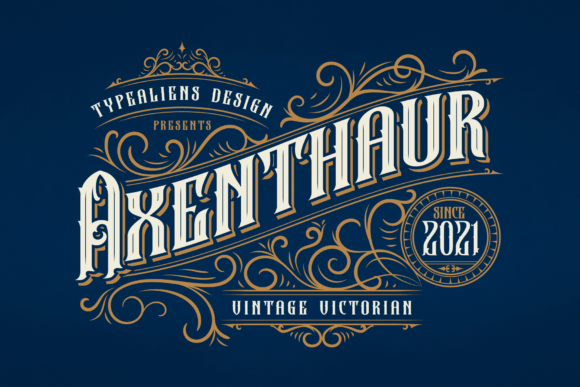
Axenthaur Font: A Timeless Vintage Blackletter Font for Crafty Ideas
Are you looking for a font that can add a touch of elegance and sophistication to your crafty projects? Look no further than Axenthaur, a detailed, vintage-styled blackletter font that is sure to impress. With its original look and versatility, Axenthaur is perfect for a wide range of applications, from letterheads and titles to stationery and more.
What is Axenthaur Font?
Axenthaur is a blackletter font that has been carefully crafted to evoke the feeling of traditional craftsmanship and vintage charm. Its intricate details and ornate design make it a standout among other fonts, and its versatility ensures that it can be used in a variety of contexts. Whether you’re looking to create a bold and dramatic statement or a more subtle and understated look, Axenthaur is the perfect choice.
Key Features of Axenthaur Font
So, what sets Axenthaur apart from other fonts? Here are just a few of its key features:
- Detailed and intricate design: Axenthaur’s design is characterized by its intricate details and ornate flourishes, which give it a truly unique and eye-catching look.
- Vintage styling: Axenthaur’s vintage styling is inspired by traditional craftsmanship and is perfect for creating a nostalgic or retro look.
- Blackletter style: As a blackletter font, Axenthaur features bold, dramatic lines and a sense of elegance and sophistication.
- Versatile: Axenthaur is a versatile font that can be used in a wide range of applications, from letterheads and titles to stationery and more.
Uses for Axenthaur Font
So, what can you use Axenthaur for? The possibilities are endless, but here are a few ideas to get you started:
- Letterheads and titles: Axenthaur’s bold and dramatic design makes it perfect for use in letterheads and titles, where it can help to create a sense of elegance and sophistication.
- Stationery: Axenthaur is also well-suited to use in stationery, such as invitations, greeting cards, and more.
- Logos and branding: Axenthaur’s unique and eye-catching design makes it a great choice for use in logos and branding, where it can help to create a sense of identity and style.
- Packaging and labels: Axenthaur can also be used in packaging and labels, where its bold and dramatic design can help to create a sense of drama and flair.
Tips for Using Axenthaur Font
Here are a few tips for getting the most out of Axenthaur:
- Use it sparingly: Axenthaur’s bold and dramatic design can be overwhelming if overused. Use it sparingly to create a sense of drama and emphasis.
- Pair it with other fonts: Axenthaur can be paired with other fonts to create a sense of contrast and visual interest. Try pairing it with a simpler font for a bold and dramatic look.
- Experiment with different sizes and colors: Axenthaur’s design looks great in a variety of sizes and colors. Experiment with different options to find the one that works best for your project.
Axenthaur is a truly unique and versatile font that is perfect for crafty ideas. Its vintage styling, intricate details, and bold and dramatic design make it a standout among other fonts, and its versatility ensures that it can be used in a wide range of applications. Whether you’re looking to create a bold and dramatic statement or a more subtle and understated look, Axenthaur is the perfect choice.
- What is Axenthaur font?
- Axenthaur is a detailed, vintage-styled blackletter font that is perfect for crafty ideas.
- What can I use Axenthaur for?
- Axenthaur can be used in a wide range of applications, from letterheads and titles to stationery and more.